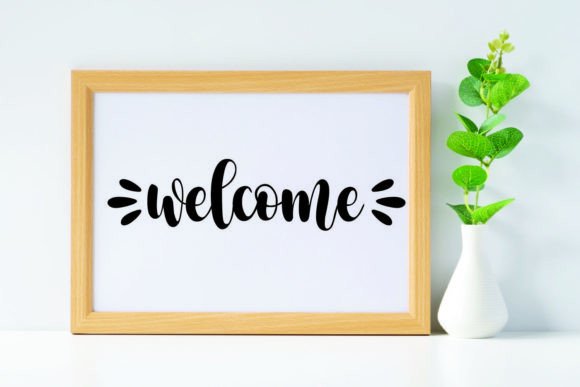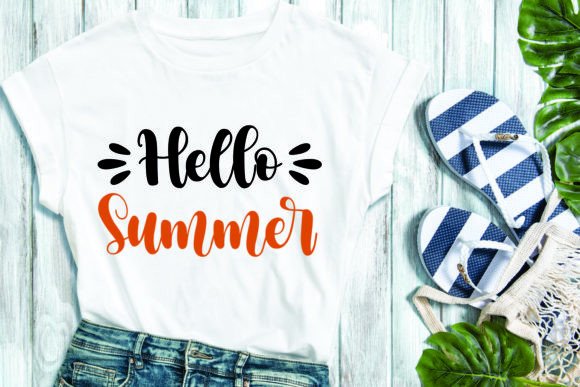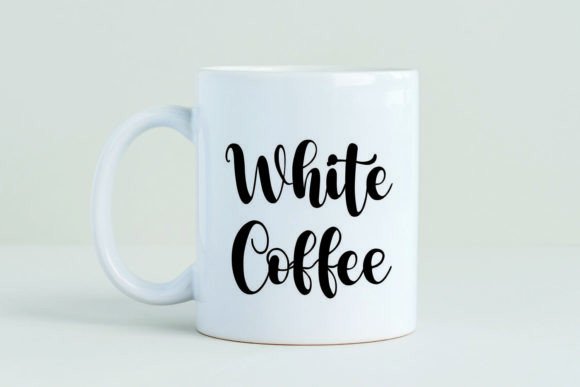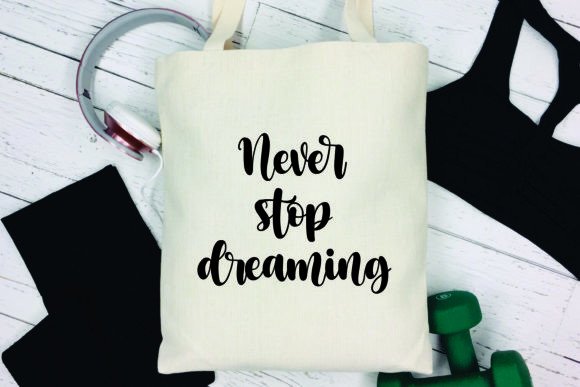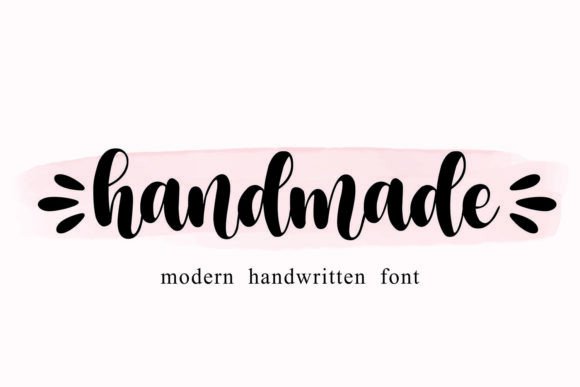
Introducing Handmade Font: The Whimsical and Charming Typeface for Every Occasion
Are you a designer, crafter, or DIY enthusiast looking for a font that captures the essence of handmade and quirky design? Look no further than Handmade Font, a delightful typeface that embodies the spirit of cute handwritten and whimsical design. This charming font is perfect for celebrating various occasions and themes throughout the year, including spring, Christmas, autumn, holidays, New Year, crafting, and embroidery.
The Characteristics of Handmade Font
Handmade Font is a unique and playful typeface that boasts a range of characteristics that make it perfect for a variety of design projects. Some of its key features include:
- Whimsical and Charming: Handmade Font has a distinctly whimsical and charming quality that makes it perfect for designs that require a touch of personality and flair.
- Cute Handwritten: This font has a beautifully handwritten feel that is reminiscent of traditional pen and paper craftsmanship.
- Quirky Design: Handmade Font features quirky and playful design elements that add a touch of fun and whimsy to any project.
Perfect for Every Occasion
One of the best things about Handmade Font is its versatility. This delightful font is perfect for celebrating a wide range of occasions and themes, including:
- Spring: Use Handmade Font to create beautiful spring-themed designs, such as Easter cards, Mother’s Day gifts, and spring wedding stationery.
- Christmas: Get into the holiday spirit with Handmade Font, perfect for creating festive Christmas cards, decorations, and gift tags.
- Autumn: Celebrate the cozy warmth of autumn with Handmade Font, ideal for designs featuring fall leaves, pumpkins, and harvest themes.
- Holidays: Use Handmade Font to create unique and personalized holiday cards, gift tags, and decorations for any occasion.
- New Year: Ring in the new year with style and sophistication using Handmade Font, perfect for creating party invitations, decorations, and noisemakers.
- Crafting: Handmade Font is a natural fit for crafting projects, such as knitting patterns, sewing tutorials, and DIY guides.
- Embroidery: Add a touch of whimsy and charm to your embroidery projects with Handmade Font, perfect for creating personalized patches, iron-on designs, and more.
Why Designers and Crafters Love Handmade Font
So why do designers and crafters love Handmade Font? Here are just a few reasons:
- Unique and Playful: Handmade Font offers a unique and playful twist on traditional typography, making it perfect for designers and crafters who want to add a touch of personality to their projects.
- Easy to Read: Despite its whimsical nature, Handmade Font is surprisingly easy to read, making it perfect for use in a variety of design projects, from signage to stationery.
- Versatile: Handmade Font is incredibly versatile, and can be used in a wide range of design projects, from digital designs to handmade crafts.
Tips for Using Handmade Font
Here are a few tips for using Handmade Font in your design projects:
- Pair with Other Fonts: Handmade Font pairs beautifully with other fonts, such as serif and sans-serif fonts, to create visually interesting and dynamic designs.
- Experiment with Colors: Handmade Font looks great in a variety of colors, from bright and bold to soft and pastel. Experiment with different colors to find the perfect look for your project.
- Use for Headings and Titles: Handmade Font is perfect for use in headings and titles, where its whimsical and charming nature can really shine.
In conclusion, Handmade Font is a delightful and charming typeface that embodies the essence of cute handwritten and quirky design. With its versatility, playfulness, and ease of use, it’s perfect for designers and crafters who want to add a touch of personality and whimsy to their projects. Whether you’re celebrating a special occasion or just want to add some charm to your designs, Handmade Font is the perfect choice.